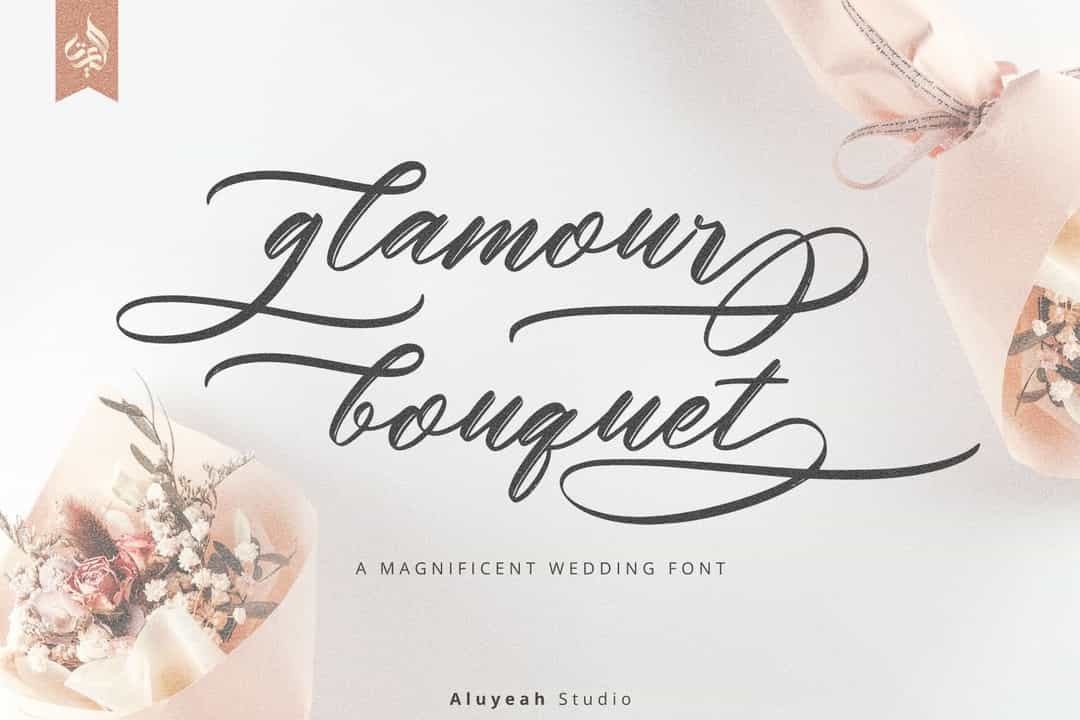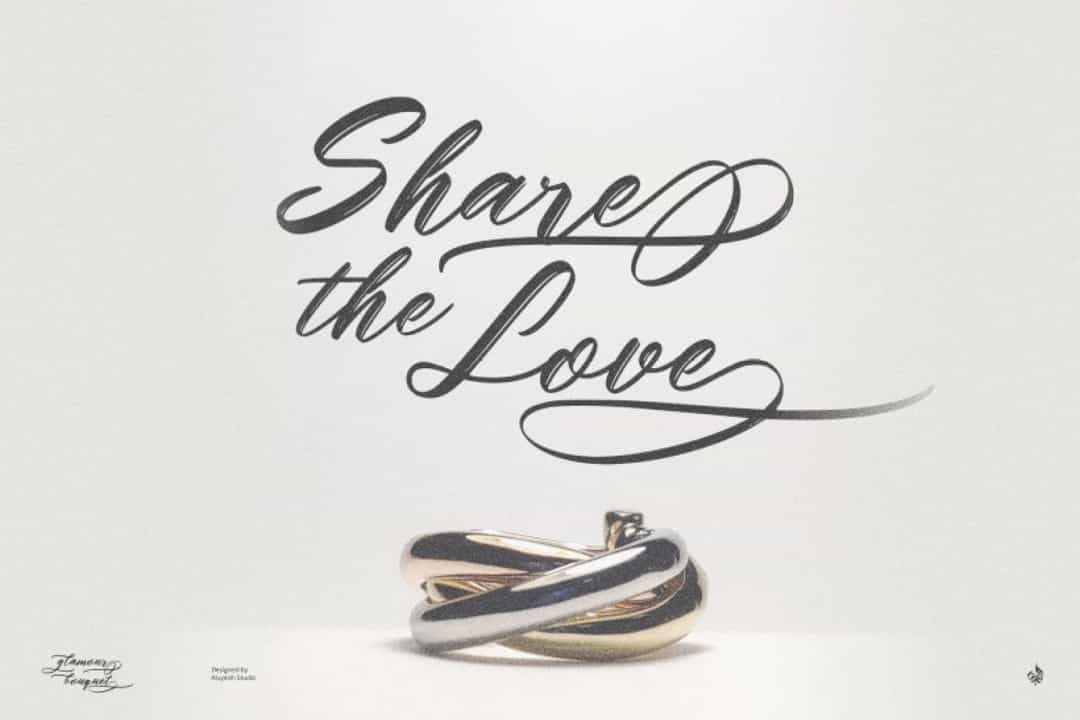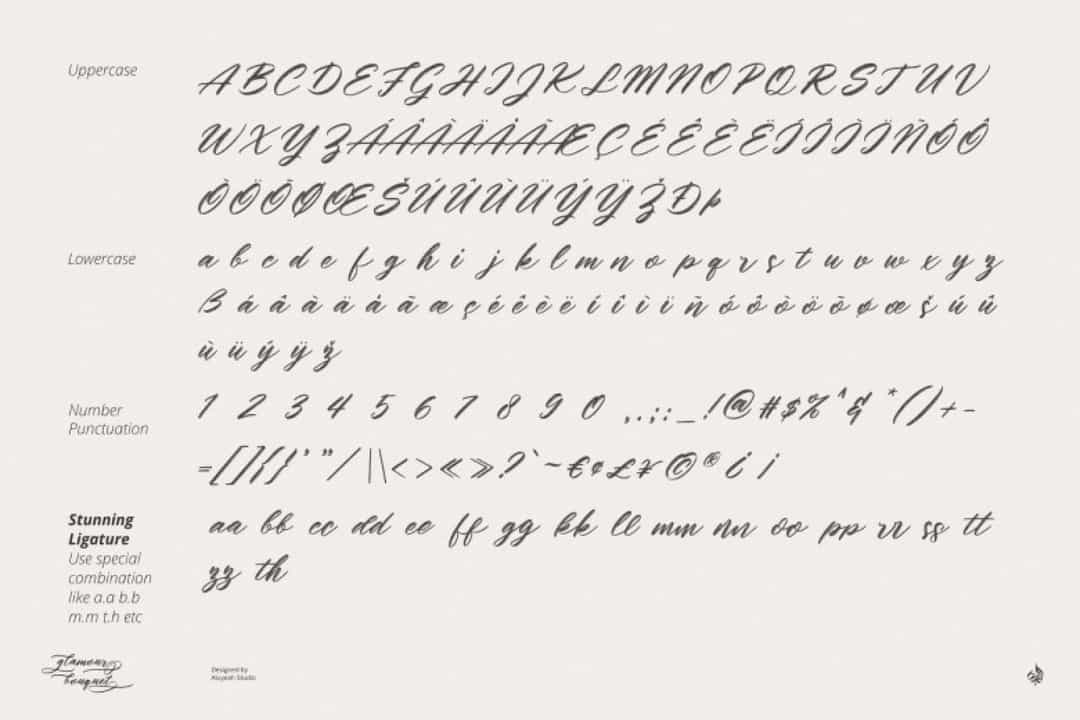
Glamour Bouquet, an amazing wadding calligraphy font. This font was created as part of an inspiration for a royal wedding in our city; two empires joined under our flag at that event. Glamour Bouquet conveys class, grandeur and joy; perfect for weddings or special events! Design tools like this one are invaluable, particularly for use in various aspects of design.